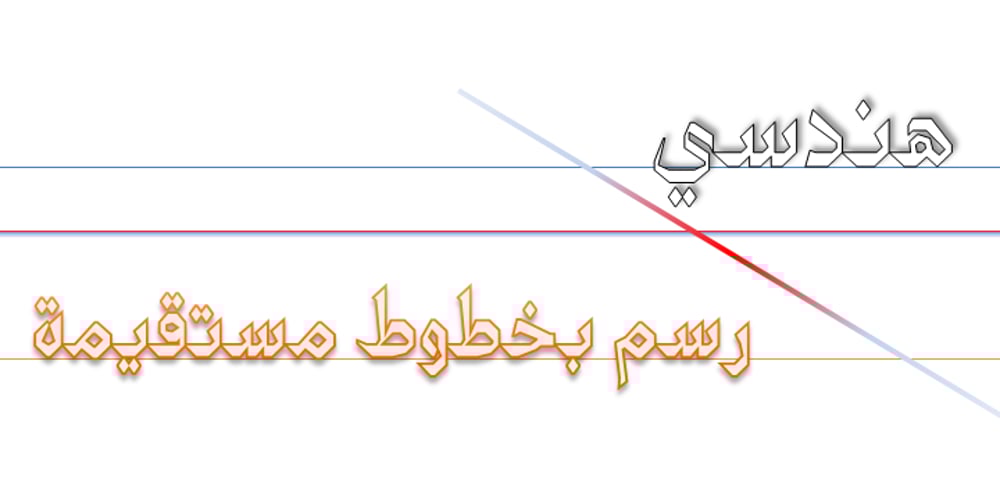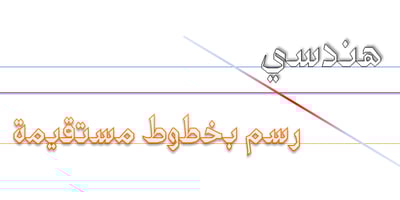
Handasi Font Family was designed by Saad D. Abulhab and published by Arabetics. Handasi contains 2 styles and family package options. The Handasi type family follows the guidelines of the Mutamathil Taqlidi type style. It has one glyph for every basic Arabic Unicode character or letter and one additional, final-position, glyph for each Arabic letter that is normally connected with other letters from both sides in traditional cursive Arabic strings. Handasi employs variable x-height values. Its design uses straight lines only but with variable distributed weight. Handasi fonts include all required Lam-Alif ligatures and use ligature substitutions and selected marks positioning but they do not use any other glyph substitutions or forming. Text strings composed using types of this family are non-cursive with stand-alone isolated glyphs. It employs our “natural Arabic input” method where first glyph is displayed in its non-isolated form. Tatweel (or Kashida) glyph is a zero width space. Keying it before any glyph will display that glyph isolated form. Keying it before Alif Lam Lam Ha will display the Allah ligature. Handasi family includes both Arabic and Arabic-Indic numerals, all required diacritic marks, Allah ligature, in addition to all standard English keyboard punctuations and major currency symbols. The fonts in this family support the following scripts: Arabic, Persian, Urdu, Pashtu, Kurdish, Baluchi, Kashmiri, Kazakh, Sindhi, Uyghur, Turkic, and all extended Arabic scripts.